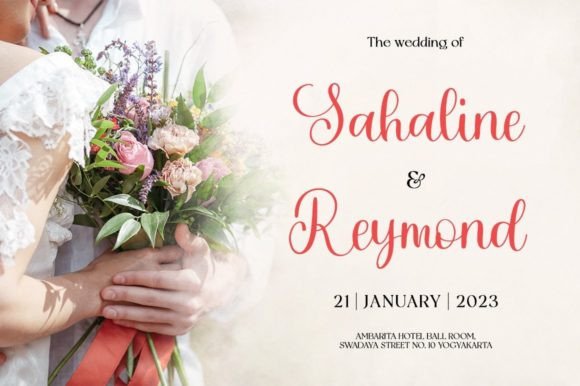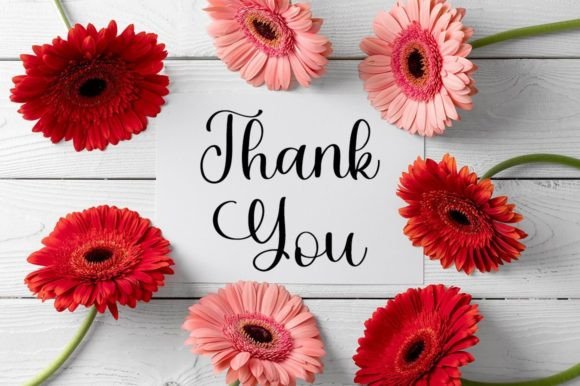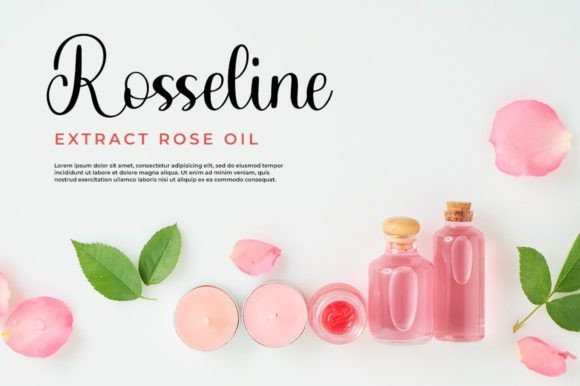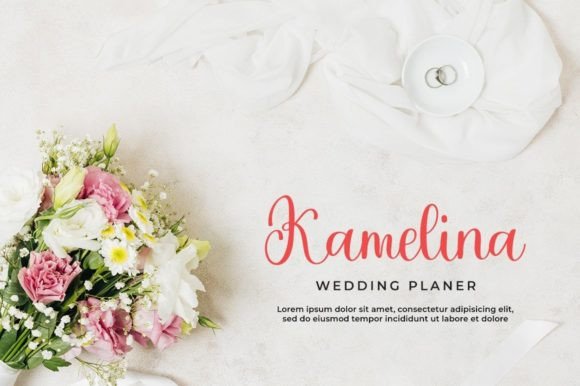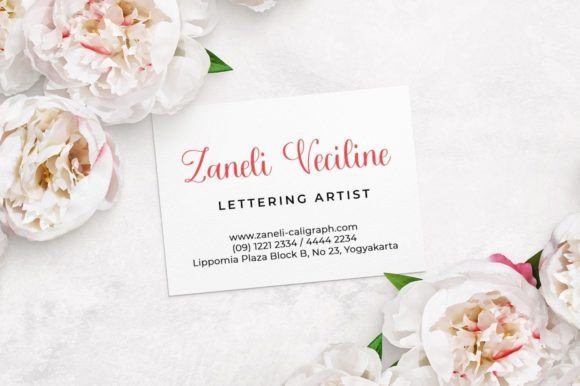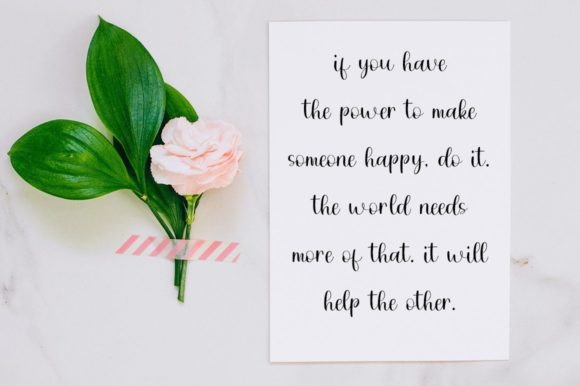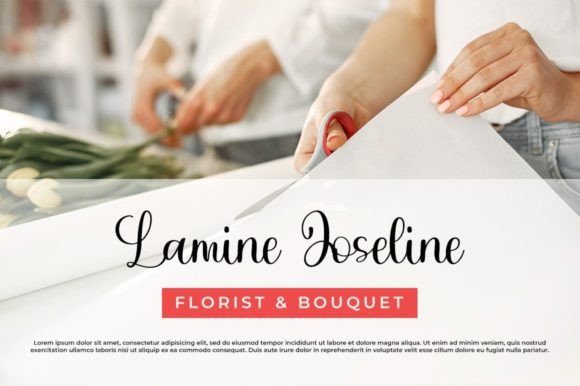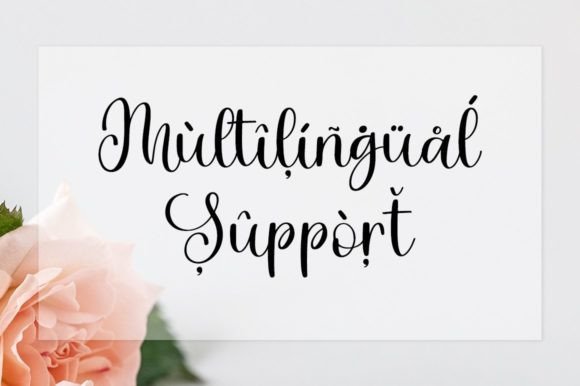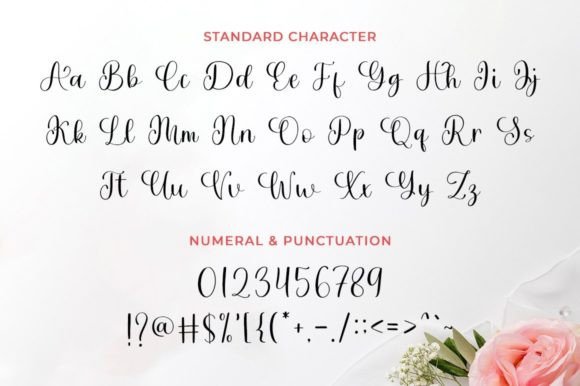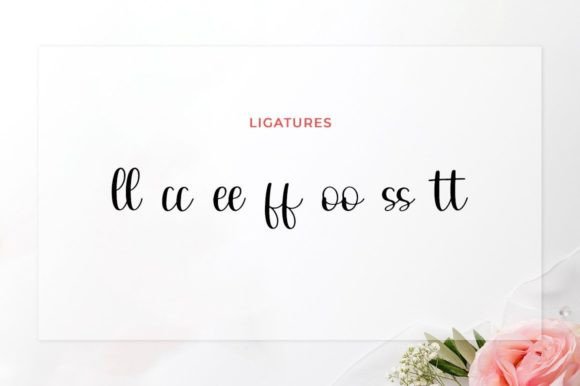
Bungalow Font
About Bungalow Font
**Bungalow** is a beautiful handwritten font that brings an elegant, classy, and modern aesthetic to your designs. Its versatile nature makes it an ideal choice for a wide array of projects, including logos, branding, invitations, stationery, wedding designs, social media posts, advertisements, product packaging, product designs, labels, photography, watermarks, special events, and any other creative endeavor that requires a handwritten touch.
The font’s elegance shines through its meticulously crafted letterforms. The flowing strokes and graceful curves create a sense of sophistication and refinement, making it suitable for projects that demand a touch of luxury and style. Whether you’re designing a high-end brand identity or elegant wedding invitations, “Bungalow” adds a sense of class and modernity to your creations.
In branding and logos, “Bungalow” can create a memorable and distinctive visual identity for your business. Its handwritten charm adds a personal touch, making your brand more relatable and approachable to your audience. The font’s elegance elevates your brand’s image, leaving a lasting impression on potential customers.
For invitations and stationery, “Bungalow” sets the tone for elegant and refined events. Whether it’s a wedding, gala, or upscale party, the font adds a touch of sophistication to your event materials, making them visually appealing and memorable to attendees.
In social media posts and advertisements, “Bungalow” can enhance the visual impact of your content. Its modern and classy look makes it suitable for promoting products, services, or special offers, capturing the attention of your audience and conveying a sense of professionalism and quality.
Additionally, “Bungalow” works well in product packaging, labels, and photography watermarks, adding a luxurious touch to your products and images. Its handwritten style adds authenticity and uniqueness, making your products and photographs stand out from the competition.
In summary, “Bungalow” is a versatile and elegant handwritten font that brings sophistication and modernity to your designs. Its ability to convey a sense of class and refinement makes it a valuable asset for a wide range of creative projects. Embrace the elegance of “Bungalow” and let it enhance your designs with its timeless charm and contemporary flair.